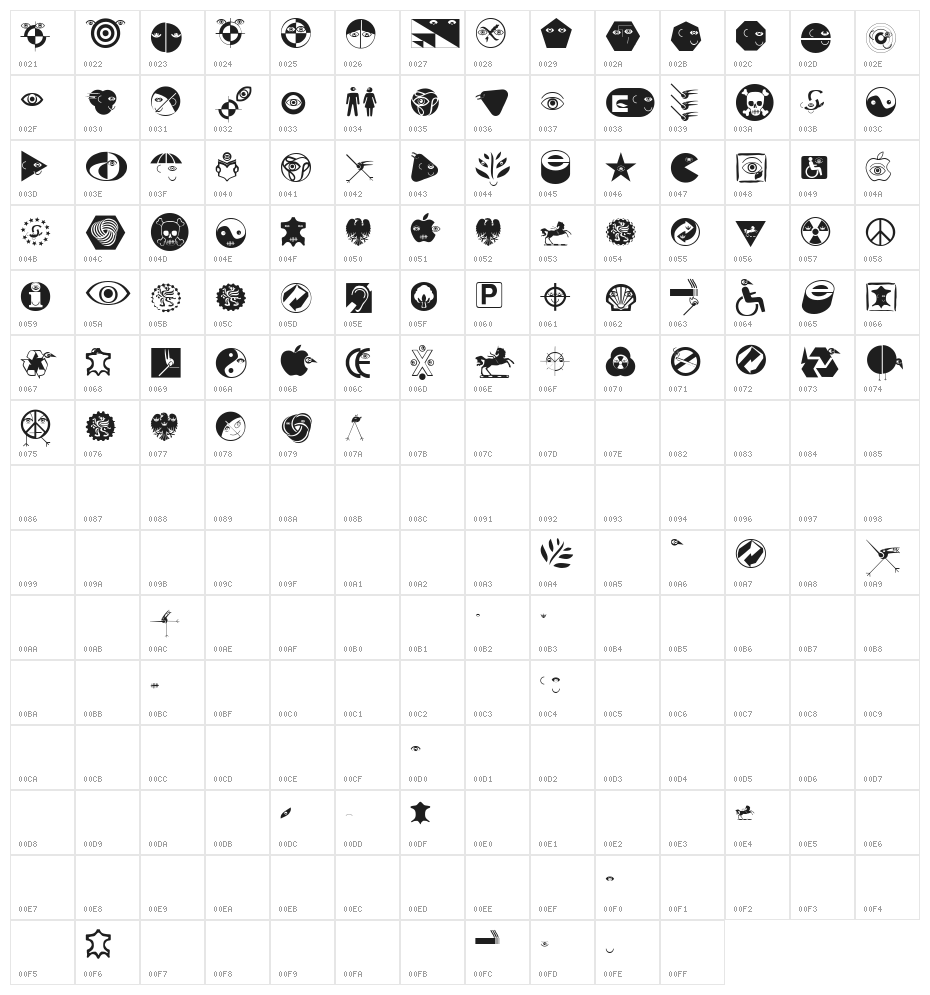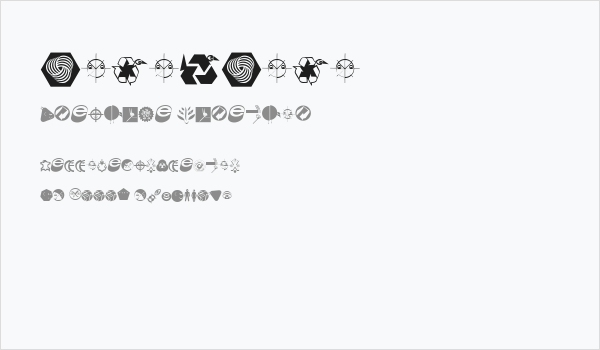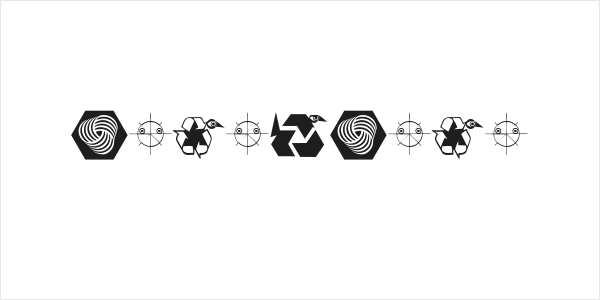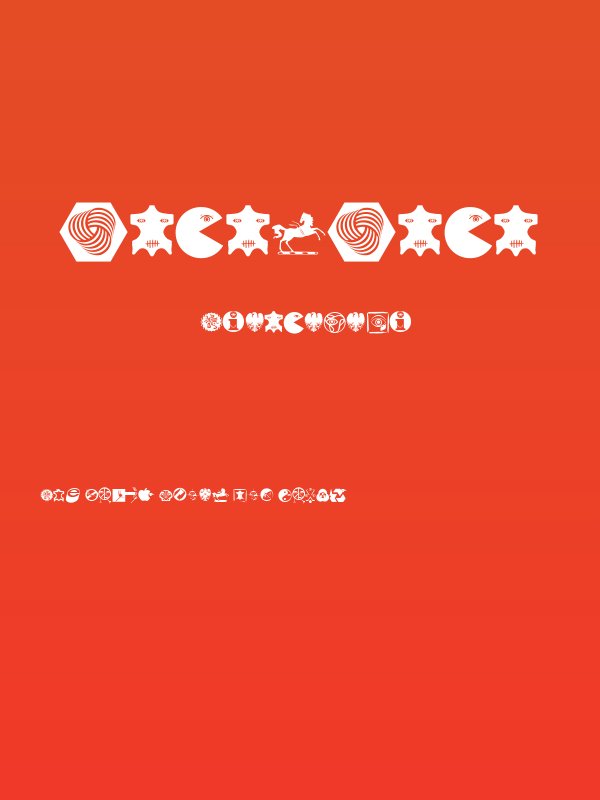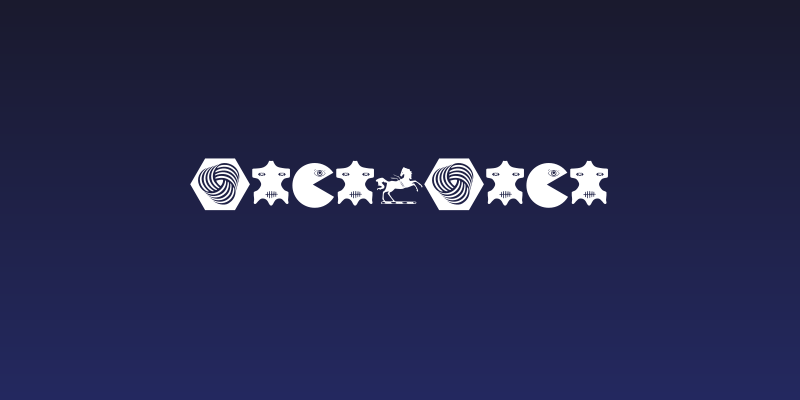
LogosLogo Font
LogosLogo Description
A decorative display font composed entirely of stylized pictograms and logo-inspired glyphs, featuring a mix of abstract, geometric, and representational symbols in bold black shapes with high visual contrast.
| Overall Style | Decorative, Modern, Playful |
| Use Case | Logos, Posters, Visual identity, Icon sets, Headline graphics |
| Proposed Projects | Branding mockups, creative posters, iconography, visual puzzles, experimental design, educational materials. |